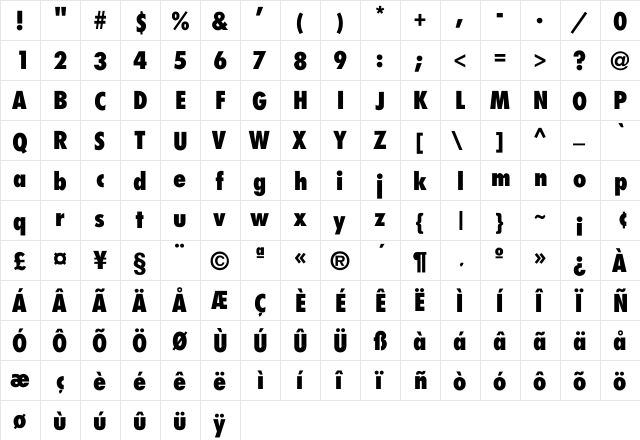
Everest Heavy Bold Reg Regular
Design Context for Everest Heavy Bold Reg Typeface
Everest Heavy Bold Reg is a composed and adaptable typeface that performs quietly and consistently across a wide range of design contexts. Its bold stroke weight gives it real presence on the page.